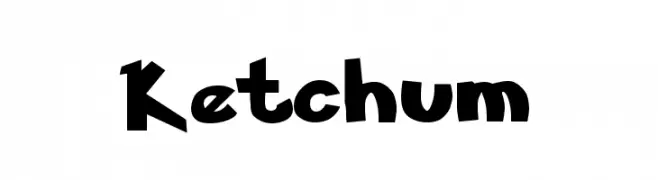
A decorative font with dragon-inspired uppercase letters and traditional serif lowercase.
A decorative font with dragon-inspired motifs and intricate designs.
A playful font with egg-shaped faces displaying various expressions.
A modern sans-serif font with geometric shapes and uniform strokes.
Pictorial, hieroglyph-inspired decorative font.
A bold, distressed block font with a rugged, vintage feel.
A bold, distressed font with a rugged, textured appearance.
A bold, barbed wire-inspired font with intricate, angular lines.
A bold, modern font with a unique horizontal line through each character.
A bold, split-style font with high contrast and uniform width.
A calligraphic font with sharp, angular strokes and elegant curves, evoking a fantasy or ancient script style.
A geometric and futuristic font with angular, linear characters.
A dynamic font with sharp angles and lightning bolt motifs, perfect for energetic designs.
A bold, futuristic font with angular, energetic design elements.
A dynamic, italicized font with sharp angles and a futuristic style.
A bold, rounded font with smooth curves and a playful, friendly appearance.
A bold, italicized, and playful font with rounded, connected characters.
A bold Gothic font with sharp, angular lines and intricate serifs.
A bold Gothic font with sharp, angular lines and intricate detailing.
A classic Gothic-style font with ornate, medieval-inspired letterforms.
A medieval-inspired font with angular serifs and a gothic aesthetic.
A classic Gothic font with sharp serifs and medium contrast, ideal for decorative use.
A Gothic-style font with sharp, angular lines and intricate detailing.
A bold, gothic-style font with sharp, angular lines and medieval flourishes.
A playful, italic script font with rounded, connected characters.
A modern, hollow outline font with rounded, smooth characters.
A hollow, inverse font with smooth curves and a modern look.
A playful, modern font with rounded edges and consistent stroke width.